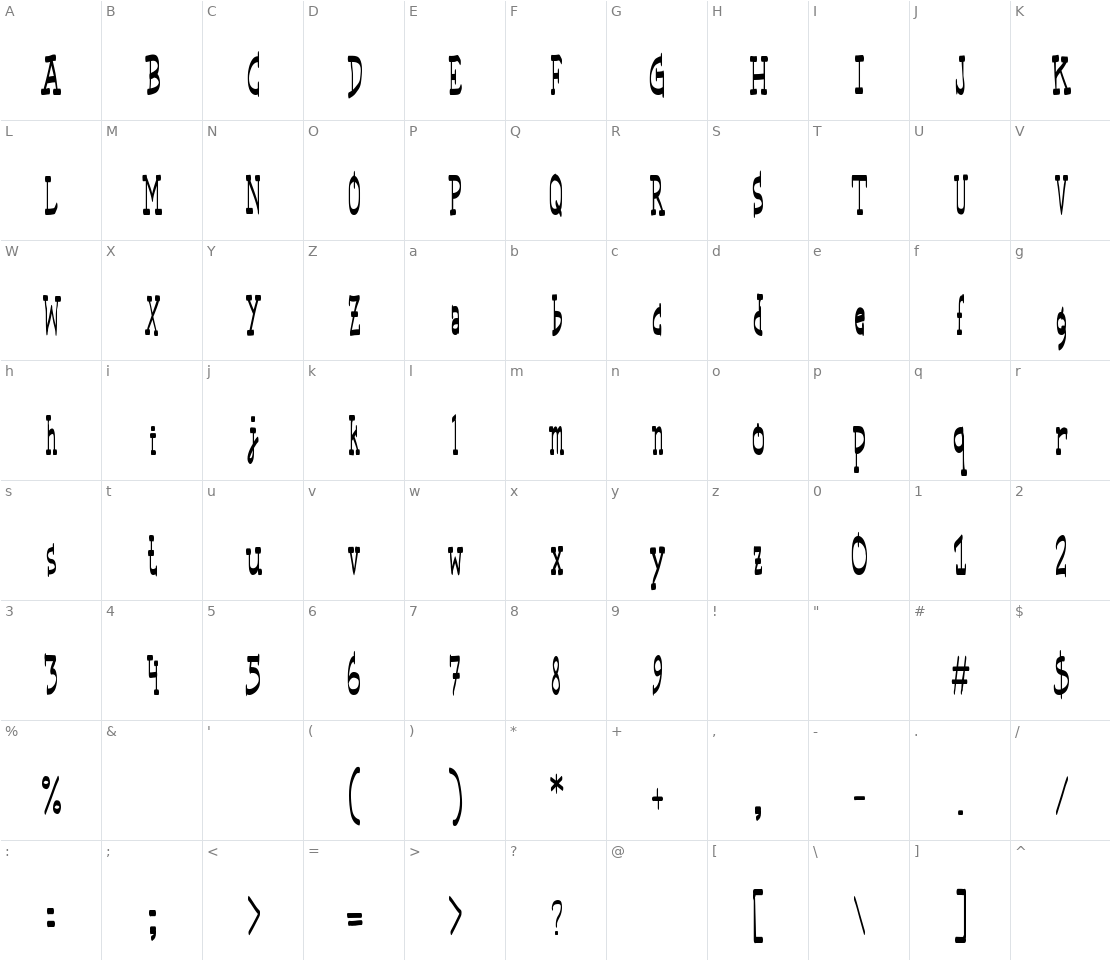
Basic Space
by Joanne Abellar · Website
Basic Space is a bold, condensed display face by Joanne Abellar with heavy letterforms and a quirky decorative streak that keeps it from feeling generic. The tight proportions and chunky weight give it real poster presence, while the unusual character details add personality you don't often get from fonts this heavy. Best kept to headlines and short runs of text where its eccentricities can land.